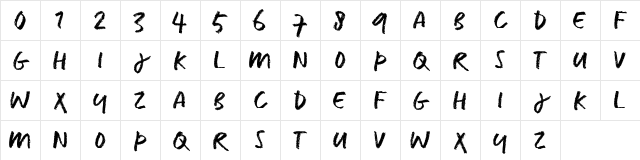
Complete CAPUT_TRIAL Regular glyph index. Displaying only characters natively supported by CAPUT_TRIAL Regular font.
CAPUT_TRIAL is a composed and adaptable typeface that performs quietly and consistently across a wide range of design contexts.
Who designed the CAPUT_TRIAL Regular font?